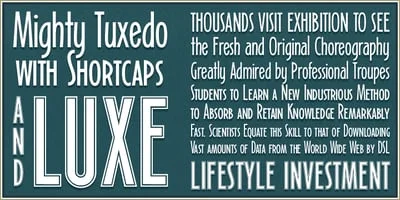
Mighty Tuxedo AOE Font
Mighty Tuxedo AOE Font is perfect for luxury events, formal invitations, high-end restaurants, premium packaging, gentleman's clubs, sophisticated branding, and elegant entertainment venues. This distinguished typeface brings classic refinement and masculine elegance to upscale design projects.
Mighty Tuxedo AOE Font is exciting because it embodies timeless sophistication with its bold, commanding letterforms that exude confidence and distinguished character while maintaining the refined elegance essential for luxury applications and formal communications.
The Mighty Tuxedo AOE Font family includes multiple weights and stylistic variations that capture the essence of formal elegance. This comprehensive collection provides designers with sophisticated options for creating distinguished and memorable luxury brand experiences.
Mighty Tuxedo AOE Font offers designers access to an expertly crafted typeface that represents the pinnacle of masculine elegance and formal sophistication. This distinguished font features bold, confident letterforms with refined details that create immediate associations with luxury, tradition, and distinguished service. The typeface showcases strong character presence and elegant proportions that ensure excellent readability while projecting authority and premium quality. Its sophisticated aesthetic makes it particularly suitable for luxury brands and formal establishments that require typography capable of conveying exclusivity and refined taste. Mighty Tuxedo AOE Font delivers exceptional impact for applications where conventional fonts lack the gravitas and distinguished character necessary for premium positioning. The font's elegant strength and refined masculinity make it an essential tool for designers working on projects that require typographic expression of luxury, tradition, and sophisticated elegance that resonates with discerning clientele seeking authentic premium experiences.